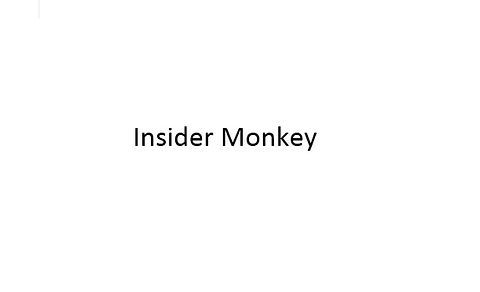
2. Calibri
If you’re a fan of Microsoft Office and using it often, then you’re well aware of this particular font, which has been the default typeface in Word since 2007. It’s a great font that’s easy to read, looks professional, although it’s not too uptight. You might get less points for using this font, however, since everyone knows it’s the default choice in Word, which means you may not have put too much thought into the perfect typeface. It all depends on the person reading your resume, in the end.